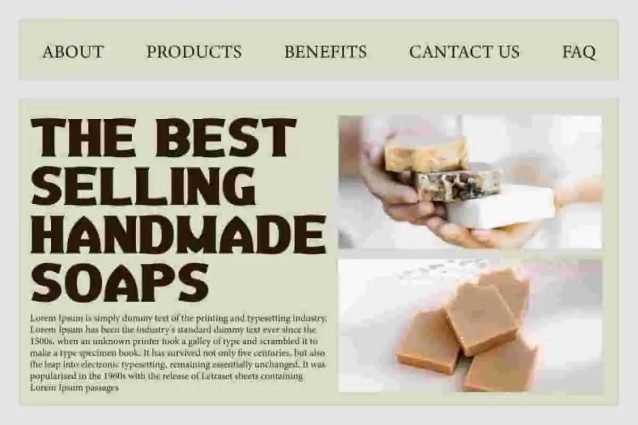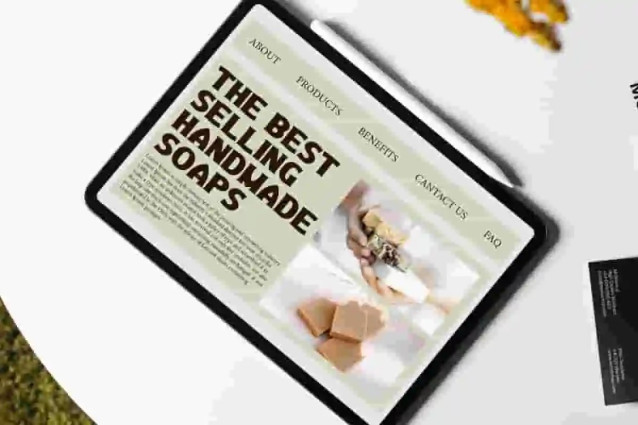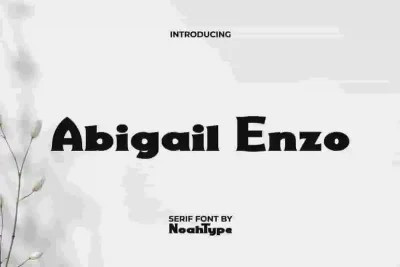
Abigail Enzo Font
Abigail Enzo Font is a retro classic serif display font by NoahType. This font has a medium weight which makes it look bold and modern on design. It will be good for any designs, such as poster, website, stationery, brand image, invitation, custom design, label, marketing material, menu, product packaging, quotes, signage, and many more!
Abigail Enzo Font includes a complete set of Uppercase and Lowercase Basic Characters, Numerals, Punctuation and Symbol. This font will give modern look and also a perfect choice for many industries, such as fashion, beauty product, event or festival, accessories, advertising, movie, photography, printing, publishing, spa and salon, travel, etc.